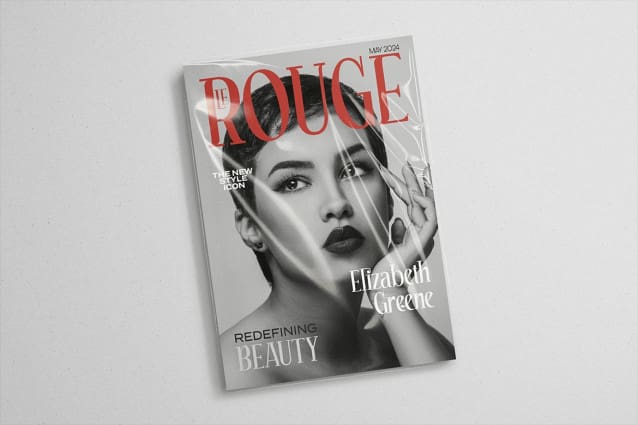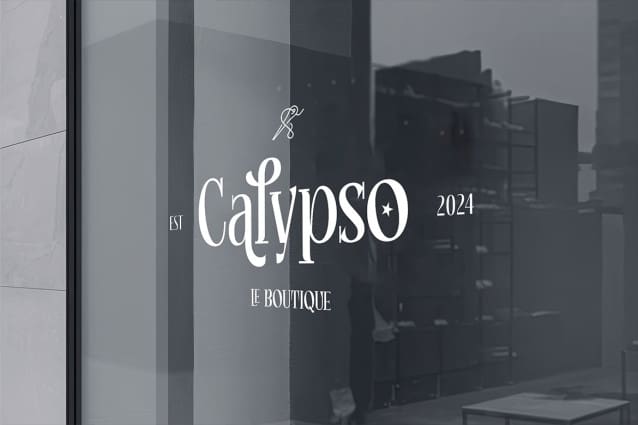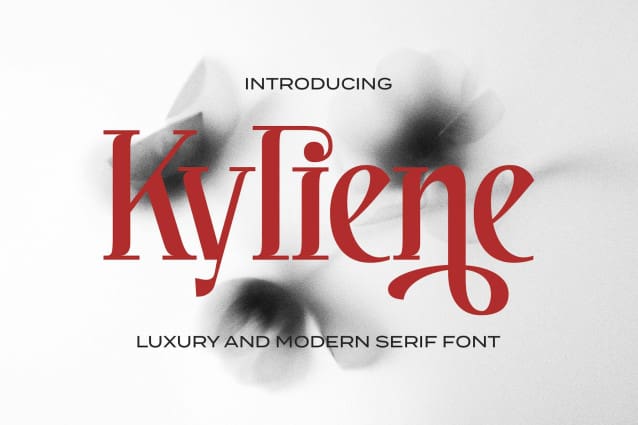
Kyliene Font
Kyliene Font, a luxurious and modern serif font . Captivate your audience with this elegant typeface. Its clean lines and refined curves will add a touch of luxury to any design. Unveil the essence of elegance today!